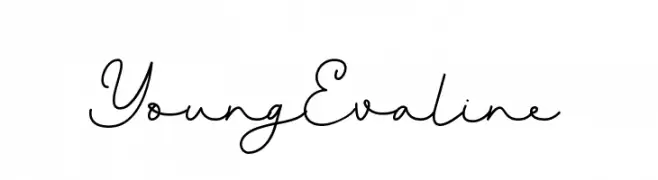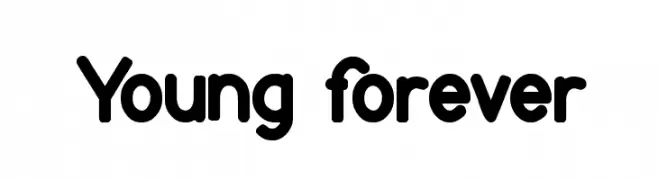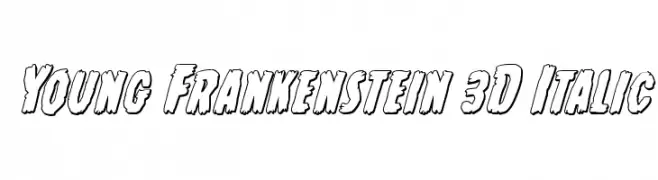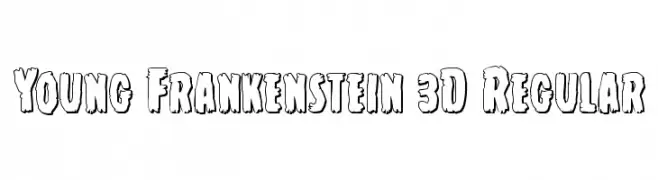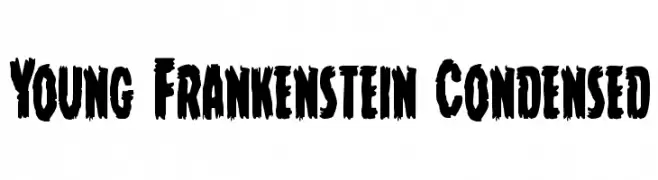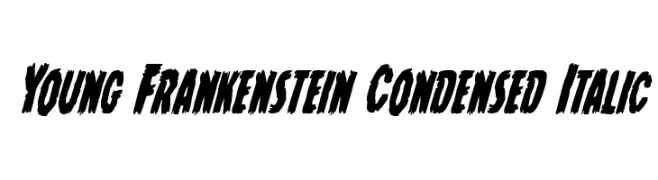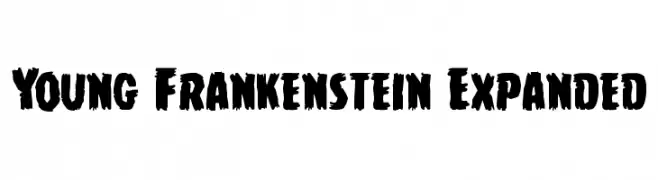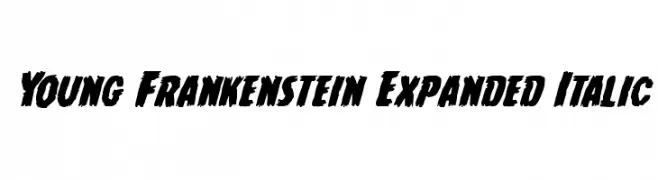
An elegant, flowing script font with smooth, cursive letterforms.
A bold, rounded font with a playful and modern aesthetic.
A bold, rounded font with a modern and friendly style.
A bold, 3D italic font with jagged edges, ideal for horror-themed designs.
A bold, playful 3D font with a whimsical, comic book style.
A bold, condensed font with a jagged, horror-inspired style.
A bold, condensed italic font with sharp, jagged edges for dramatic impact.
A bold, rugged font with thick, uneven strokes and a dramatic presence.
A bold, italicized font with brush-like strokes and a dynamic, expressive style.
A bold, italic font with jagged edges and a dramatic style.